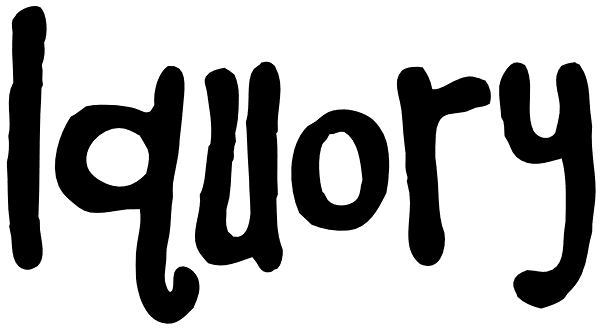
Iquory
Iquory is a charming, slightly rugged hand-drawn font. With bouncing letters and unpredictable curves, it could very easily give your text that feeling of randomness you are looking for! While the uppercase is very steady - the lowercase just...